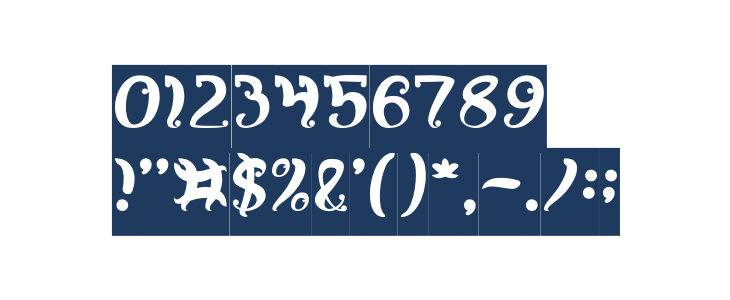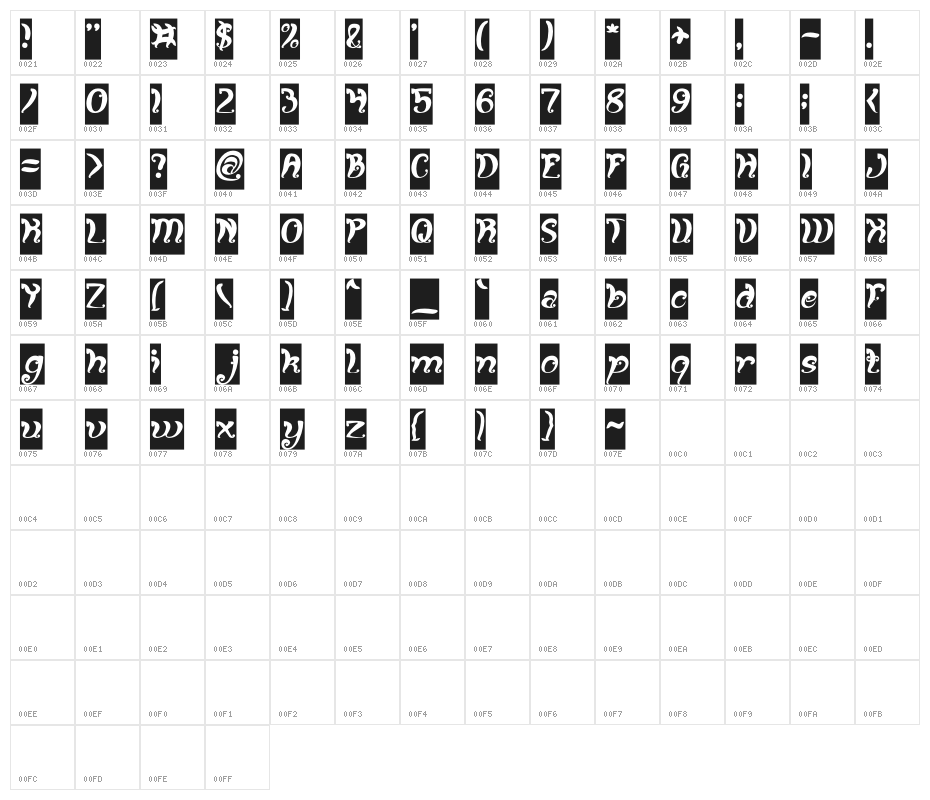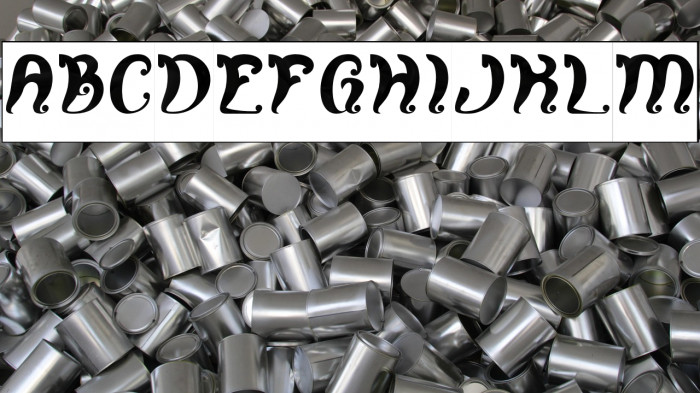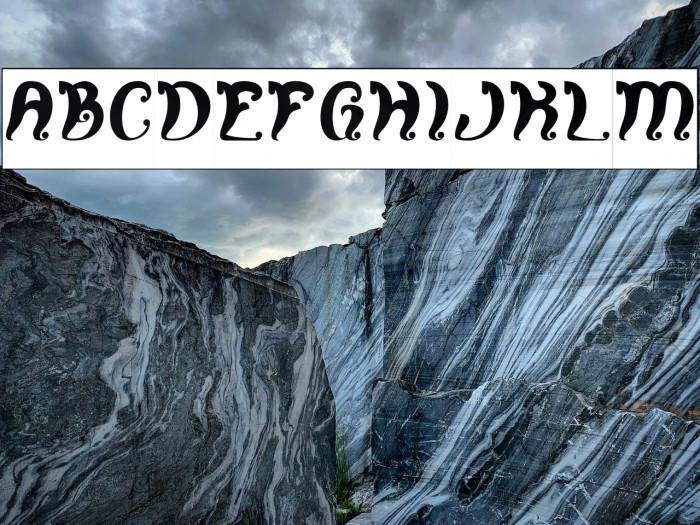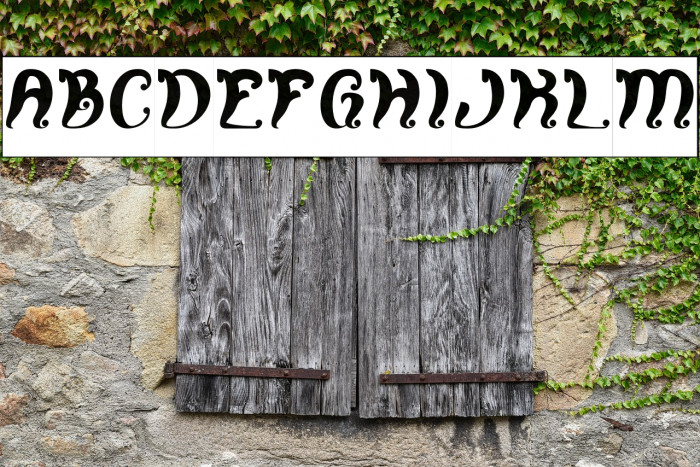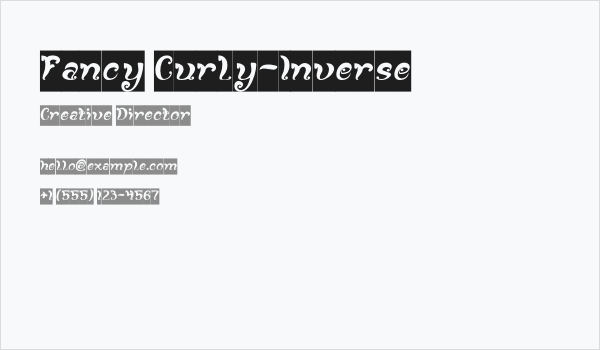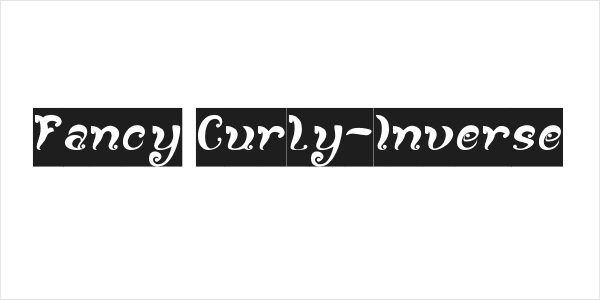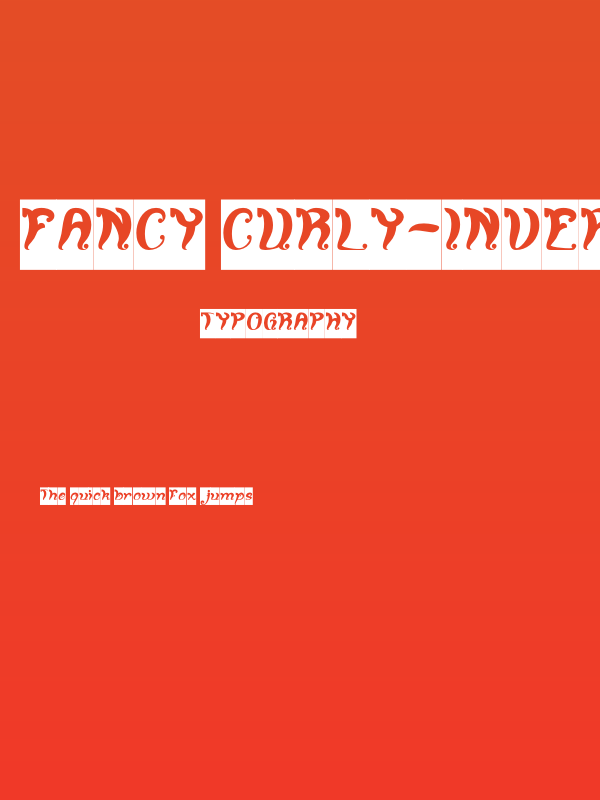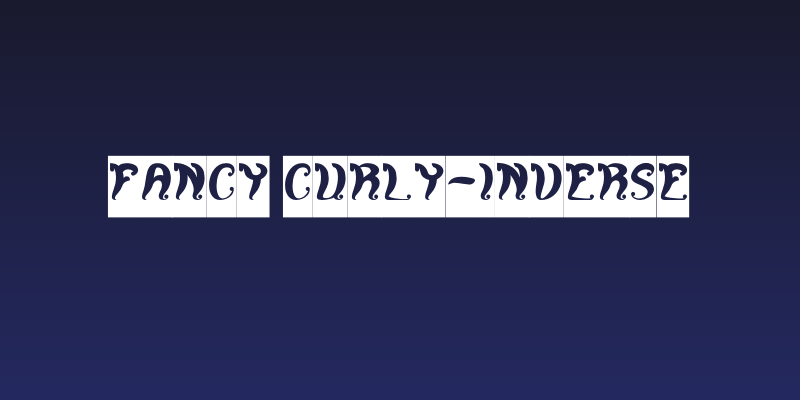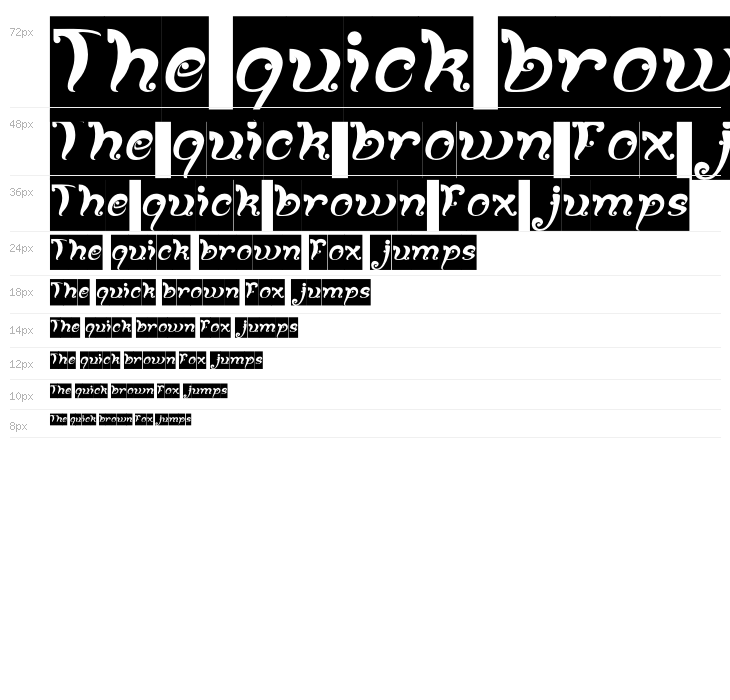
Fancy Curly-Inverse Font
Fancy Curly-Inverse Description
This font features an ornate and decorative style with curly, swirling elements that give it a whimsical and artistic flair. The characters are designed with an inverse contrast, where the strokes are thicker in unexpected places, creating a unique visual rhythm. The uppercase letters are bold and prominent, while the lowercase letters maintain the same decorative style, ensuring consistency across the typeface. The numbers and special characters are equally stylized, making them suitable for creative and expressive design projects. The overall appearance is playful yet elegant, making it ideal for capturing attention.
| Use Case | Headlines, Logos, Invitations |
| Proposed Projects | Ideal for invitations, greeting cards, branding for artistic products, or any project requiring a touch of elegance and creativity. |